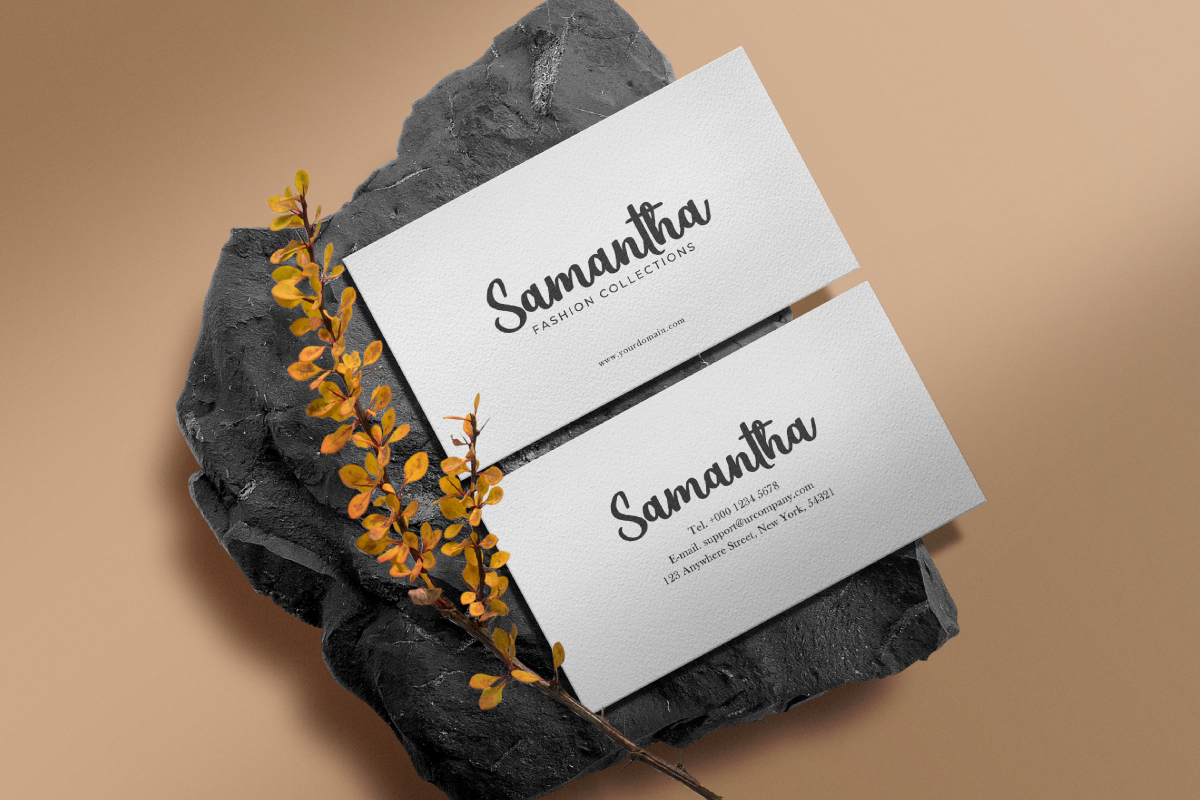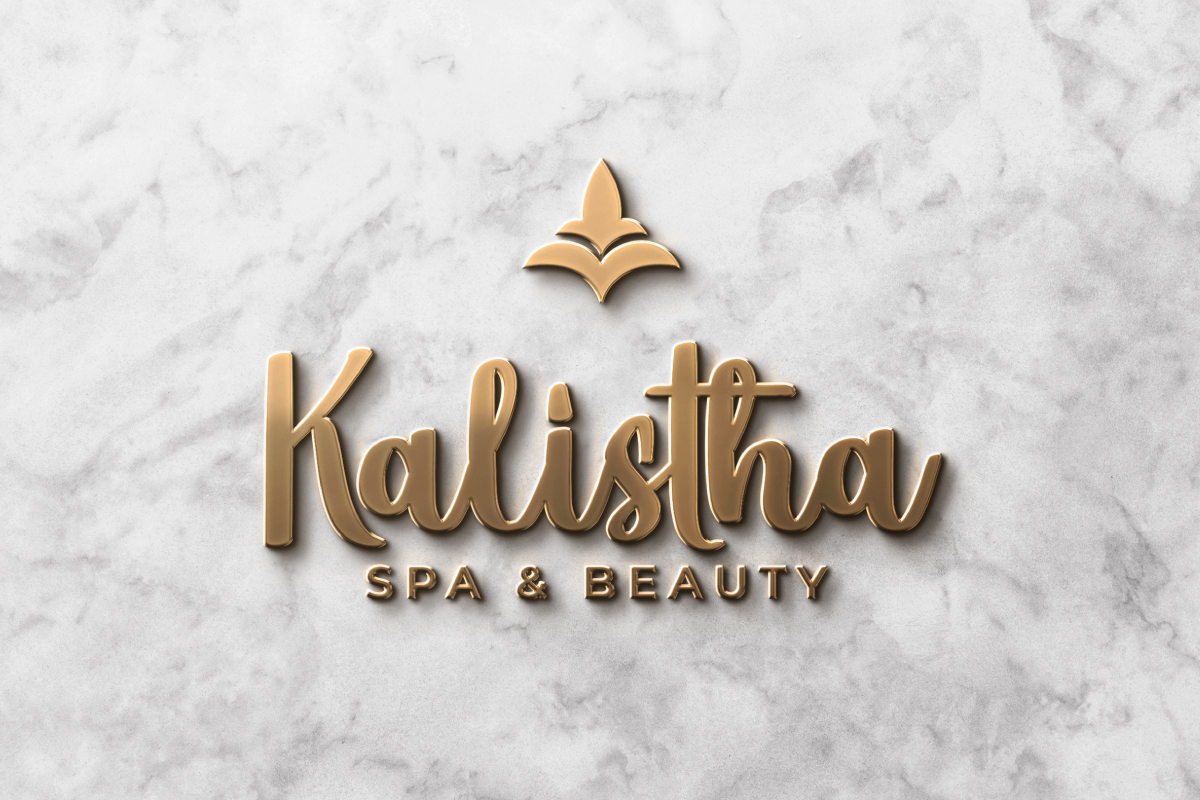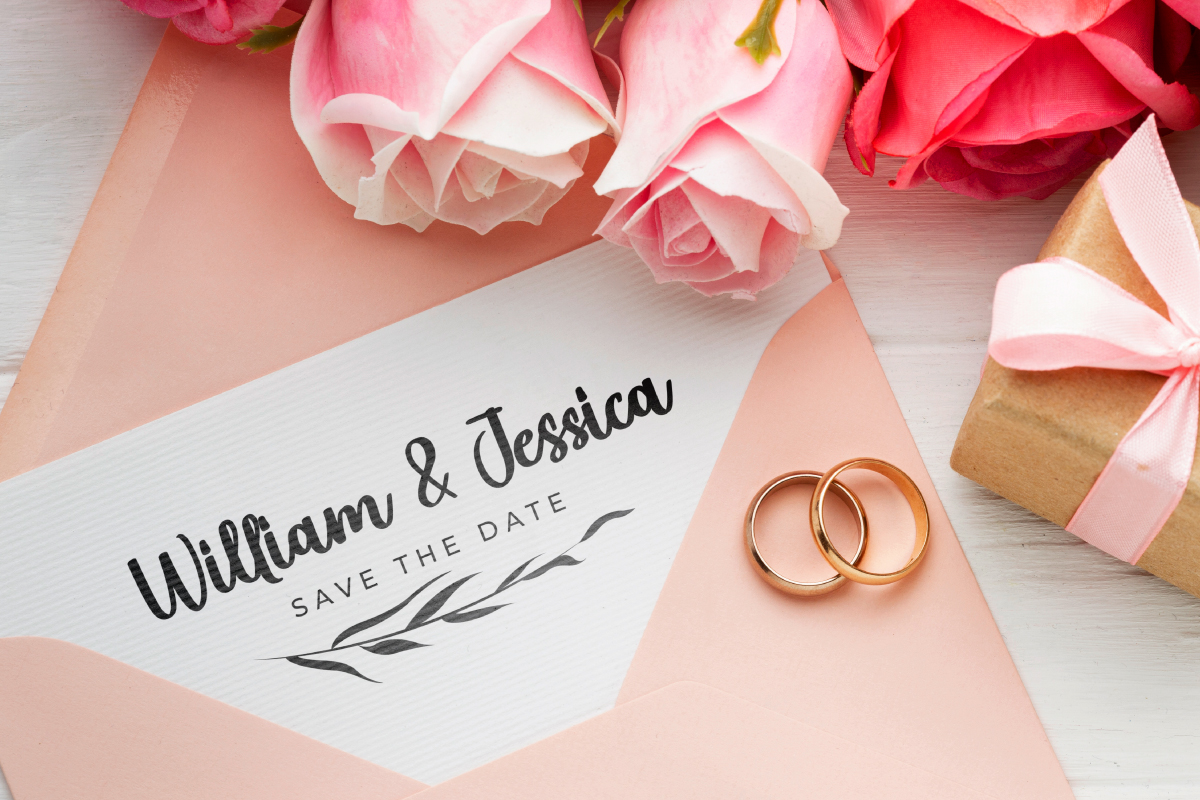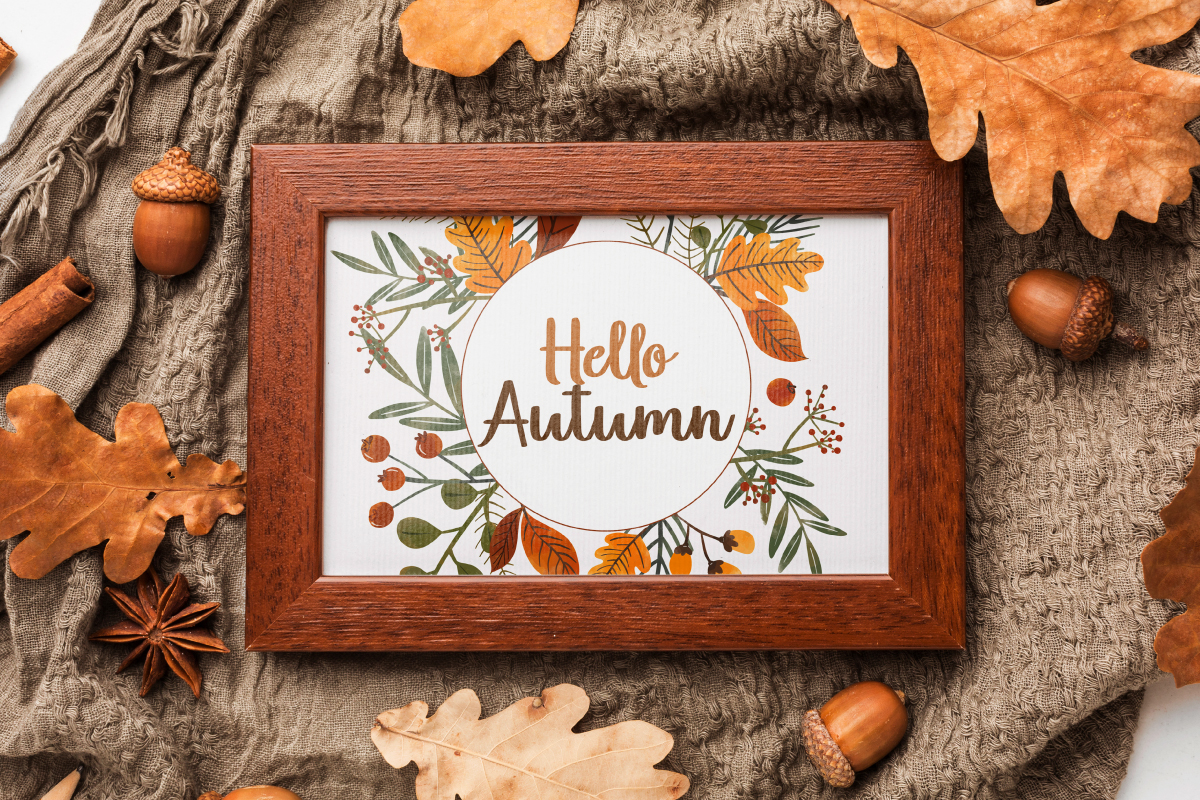
Chicken Nuggets Font
Chicken Nuggets Script Font
This font is a handwriting font inspired from special meals. The font comes with simple shape that has cute stylish, which can help make your designs project easier because it has its own uniqueness.
Chicken Nuggets Font includes full set of Uppercase and Lowercase Basic Characters, Numerals and Punctuation. Also it contains ligatures on letters, to make it flowless characters to perfectly make awesome look that add more aesthetic fonts to perfect your extraordinary project. Chicken Nuggets Font will be great for food, delicious, packaging, wedding, background, beauty, married, spa, invite.